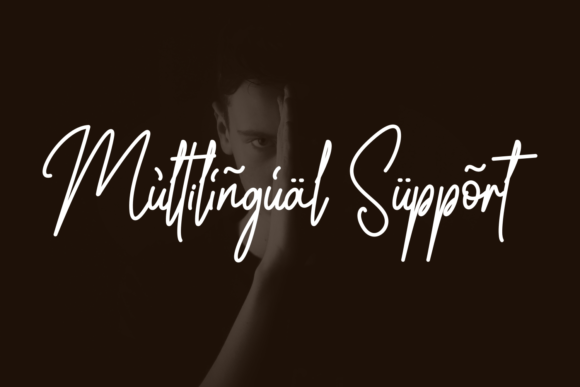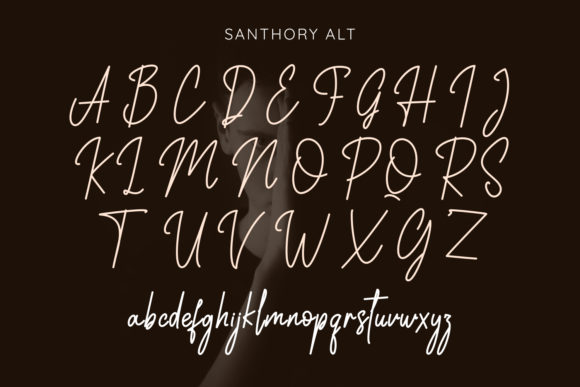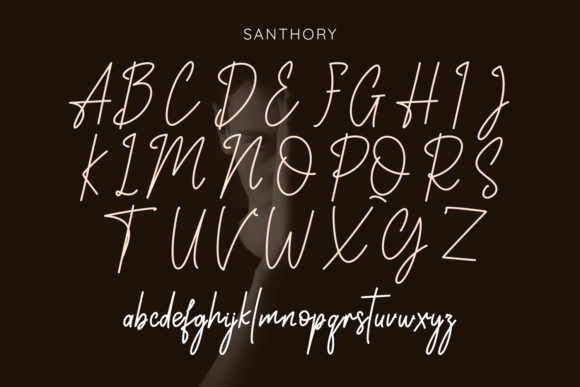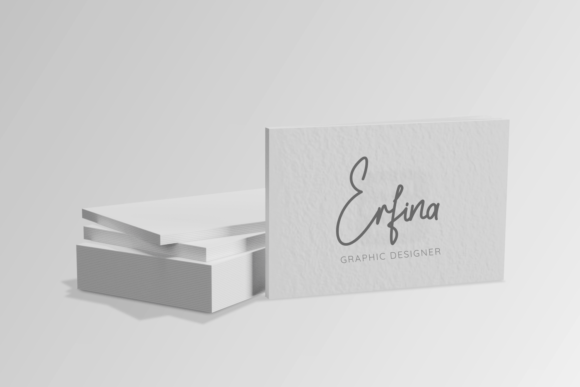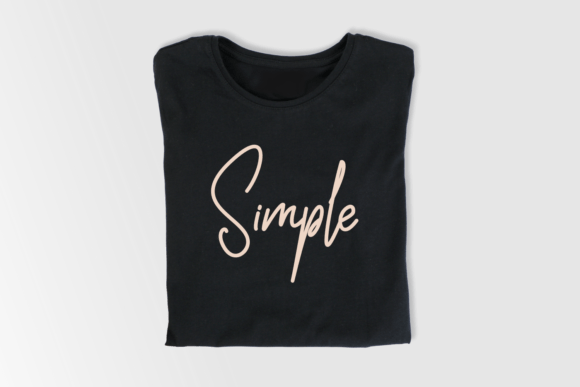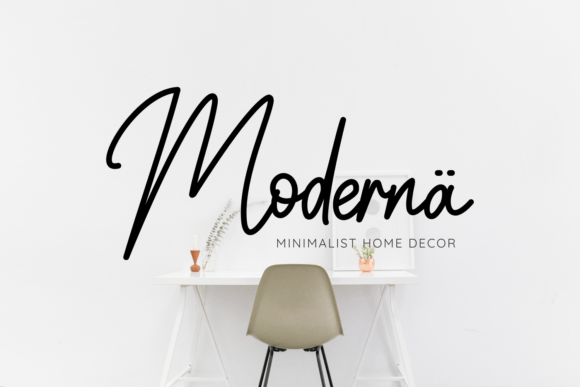
Introduction to Santhory Font
Santhory is a stylish and elegant monoline signature font.
It has beautiful and well-balanced characters and as a result, it matches a wide pool of designs .
Key Features of Santhory Font